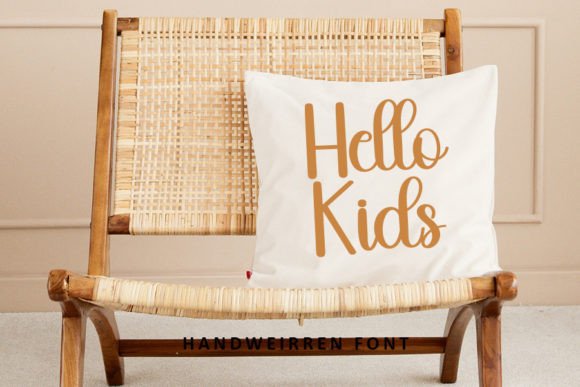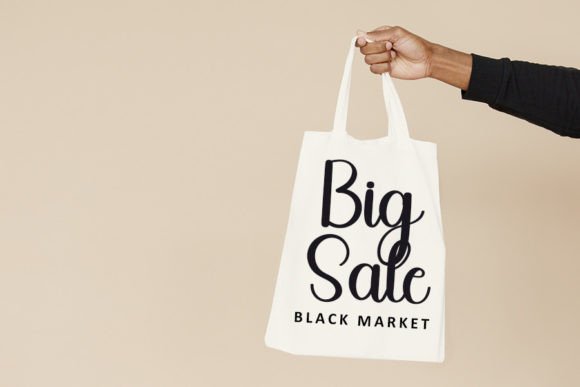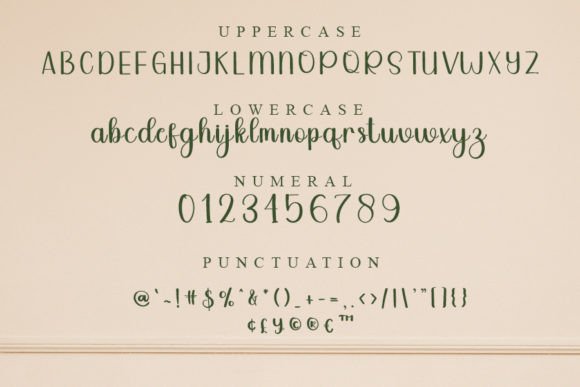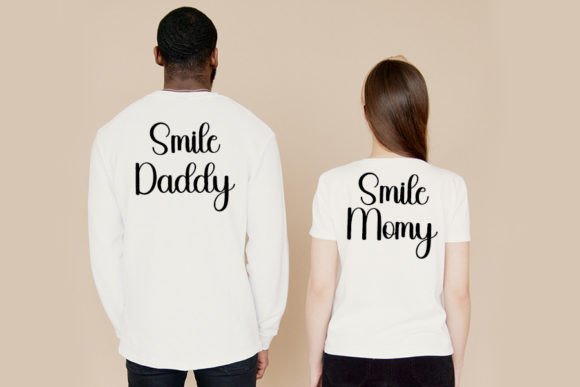
Introducing Happy Mandala Font: The Friendly Handwritten Font to Elevate Your Creative Projects
Are you a designer, crafter, or DIY enthusiast looking for a font that can add a personal touch to your creative projects? Look no further than Happy Mandala Font, a friendly handwritten font designed to become a true favorite in your font library. With its unique and playful style, Happy Mandala Font is perfect for making your projects come alive!
What Makes Happy Mandala Font Special?
Happy Mandala Font is carefully crafted to provide a warm and inviting feel to your designs. Its handwritten style is both elegant and approachable, making it suitable for a wide range of projects, from creative crafts to digital designs. The font’s friendly and bubbly personality shines through in its curves and lines, adding a touch of whimsy and fun to any design.
Key Features of Happy Mandala Font
- Handwritten style: Happy Mandala Font boasts a beautiful, handwritten style that’s perfect for adding a personal touch to your designs.
- Unique and playful: The font’s unique and playful style sets it apart from other fonts, making it ideal for creative projects that require a touch of whimsy.
- Elegant and approachable: Happy Mandala Font strikes the perfect balance between elegance and approachability, making it suitable for a wide range of projects.
- Easy to read: Despite its playful style, Happy Mandala Font is easy to read, making it perfect for use in both digital and print designs.
Why Happy Mandala Font is a Great Addition to Your Font Library
Happy Mandala Font is more than just a font – it’s a design tool that can elevate your creative projects to the next level. With this font, you can:
- Add a personal touch: Happy Mandala Font’s handwritten style allows you to add a personal touch to your designs, making them more relatable and engaging.
- Stand out from the crowd: The font’s unique and playful style sets it apart from other fonts, ensuring that your designs stand out from the crowd.
- Enhance your brand: If you’re a business owner or marketer, Happy Mandala Font can help you create a consistent brand identity that’s both friendly and approachable.
How to Use Happy Mandala Font in Your Projects
Happy Mandala Font is versatile and can be used in a variety of projects, including:
- Digital designs: Use Happy Mandala Font in your digital designs, such as social media graphics, blog posts, and email newsletters.
- Print designs: The font is perfect for print designs, including brochures, flyers, and business cards.
- Crafts and DIY projects: Happy Mandala Font can add a personal touch to your crafts and DIY projects, such as handmade cards, gift tags, and scrapbooking.
In conclusion, Happy Mandala Font is a friendly handwritten font that’s designed to become a true favorite in your font library. With its unique and playful style, elegant and approachable feel, and ease of use, Happy Mandala Font is perfect for designers, crafters, and DIY enthusiasts looking to add a personal touch to their creative projects. So why wait? Get Happy Mandala Font today and start making your projects come alive!